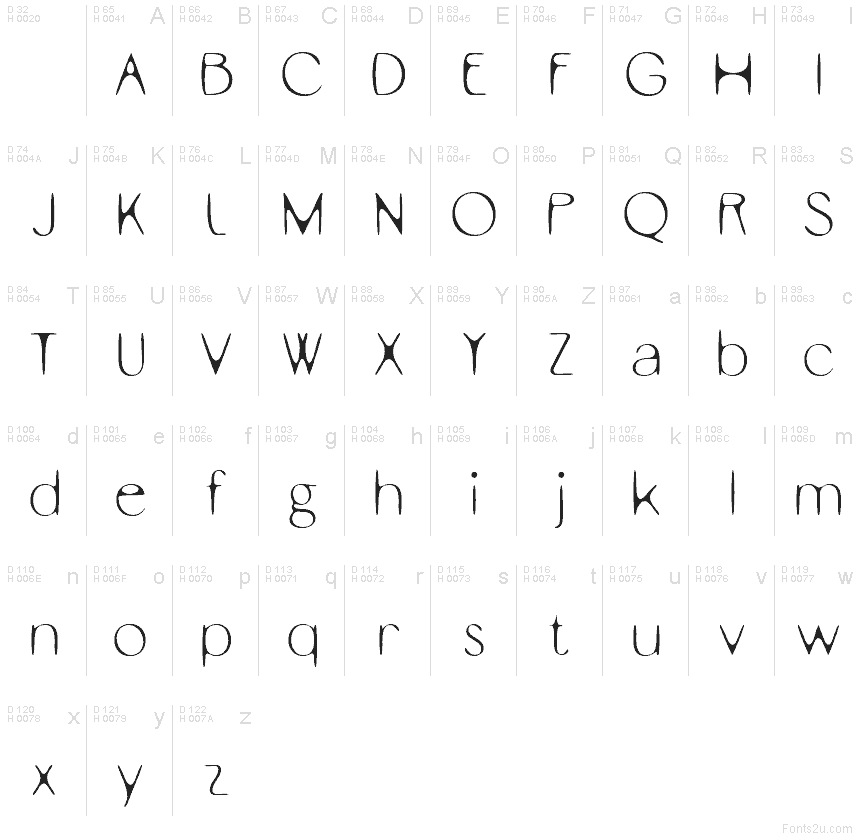
CSResidentDrawn-Regular Demo
CS Resident Drawn font by Craft Supply Co. is a free eroded font. Built within the CS Resident family, it stands out with inky, weathered edges, tall refined stems, and delicately tapered serifs that feel hand-brushed rather than machined. The contrast is elegant but imperfect, giving headlines a cultured, timeworn voice—like a letterpress print dug out of an archival drawer.
Using CS Resident Drawn, you’ll get moody, high-impact titles for book covers, film posters, boutique branding, artisanal packaging, album art, and atmospheric social graphics. Its subtle erosion adds drama without shouting, so short lines read crisply while still feeling human. Pair this free font’s headlines with a clean grotesk for body copy, or track it slightly open to let the textured contours breathe.
CS Resident Drawn Demo